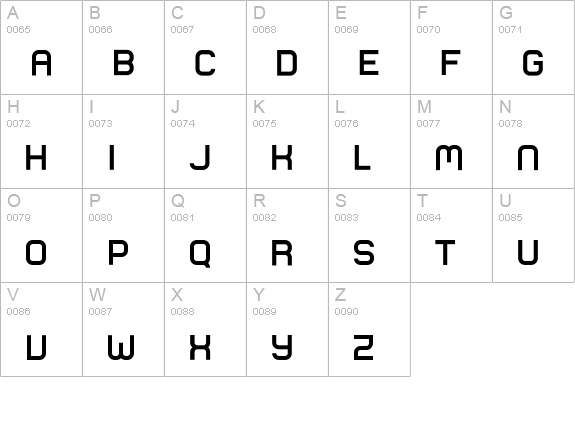
Comsat-Unit Font Details
Comsat-Unit font is a sleek and modern typeface that exudes elegance and sophistication. With its clean lines and sharp edges, this font is perfect for creating a professional and polished look in any design project. Whether you are designing a website, a logo, or a print publication, Comsat-Unit font will add a touch of class to your work. The best part? Comsat-Unit font is completely free to download at FontsMarket.com. This means that you can use this high-quality font in your projects without any cost, making it a valuable resource for designers on a budget. Don't miss out on the opportunity to elevate your designs with the stylish and versatile Comsat-Unit font - download it today and see the difference it can make in your work!